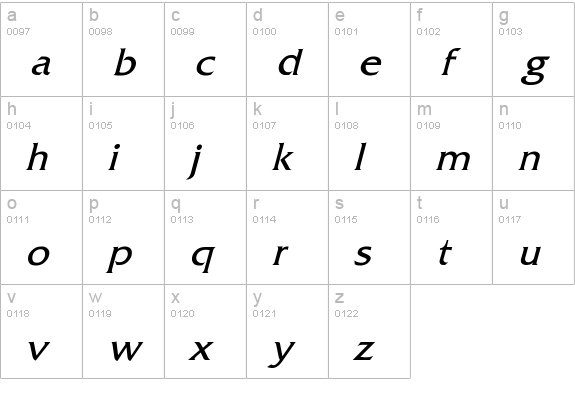
FritzQuadrata Italic Font Details
FritzQuadrata Italic is a distinctive, italic variant in the FritzQuadrata typeface family \xE2\x80\x94 well suited to design and typography projects.
FritzQuadrata Italic font exudes elegance and sophistication with its refined and graceful curves. The slanted design of the italic variant adds a touch of flair and style, making it perfect for projects that require a touch of sophistication. The delicate serifs and graceful letterforms of FritzQuadrata Italic font make it ideal for conveying a sense of luxury and refinement. And the best part is, FritzQuadrata Italic font is available for free download at FontsMarket.com. Now you can elevate your designs with this exquisite typeface without any cost. Whether you're working on invitations, branding, or editorial projects, FritzQuadrata Italic font will add a touch of class to your work. Download it now and add a touch of elegance to your designs.